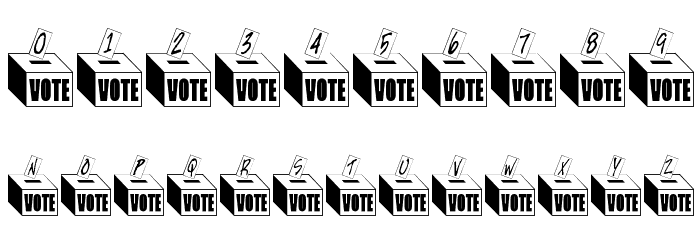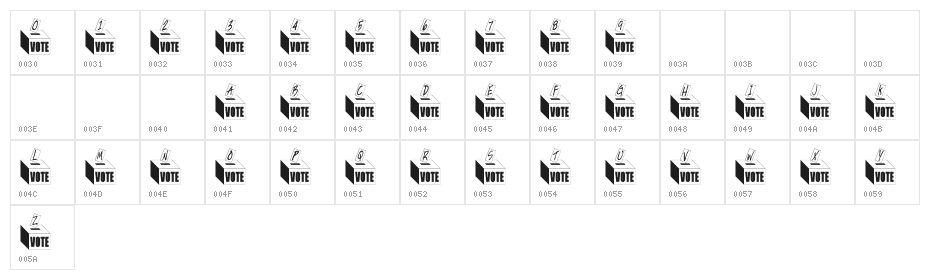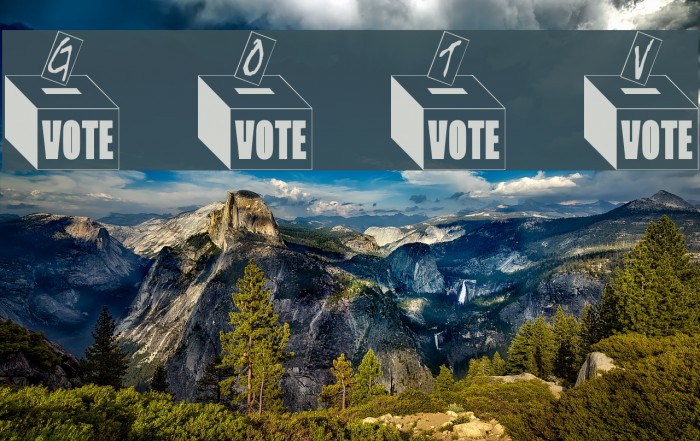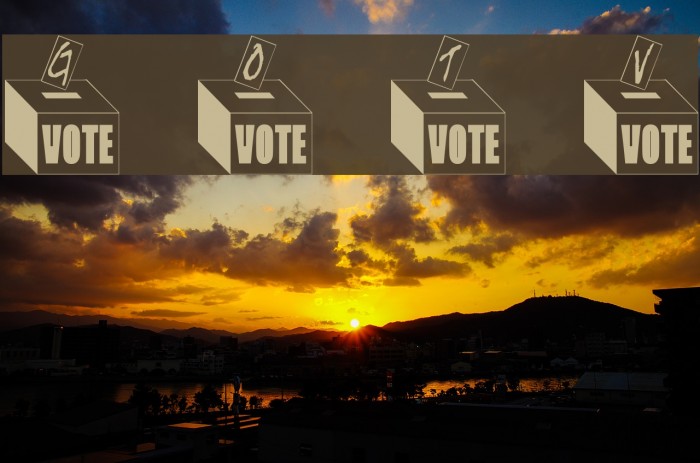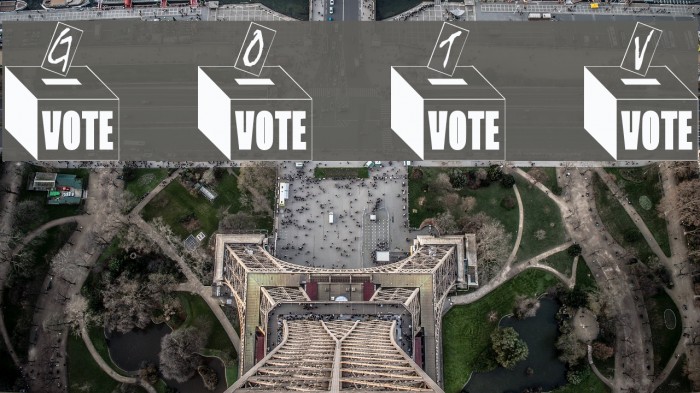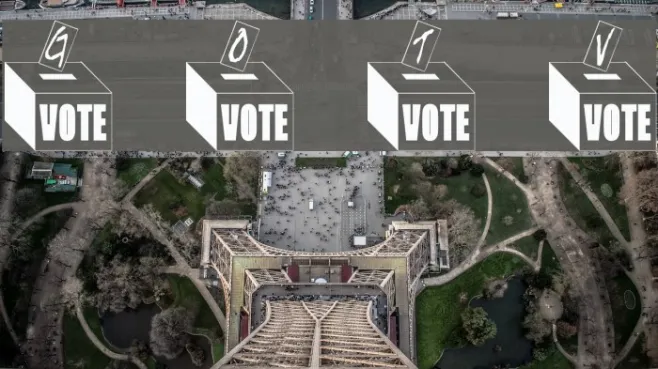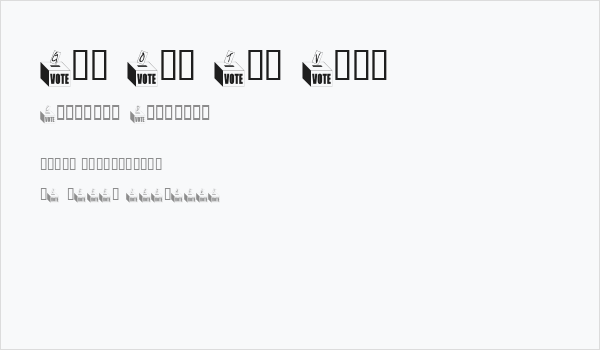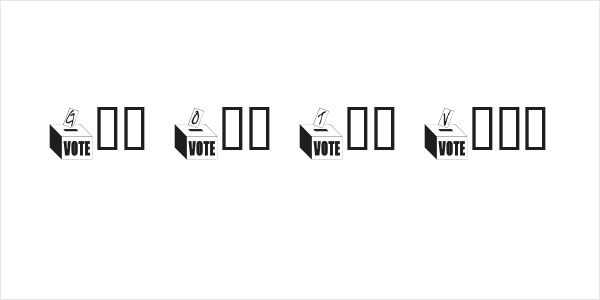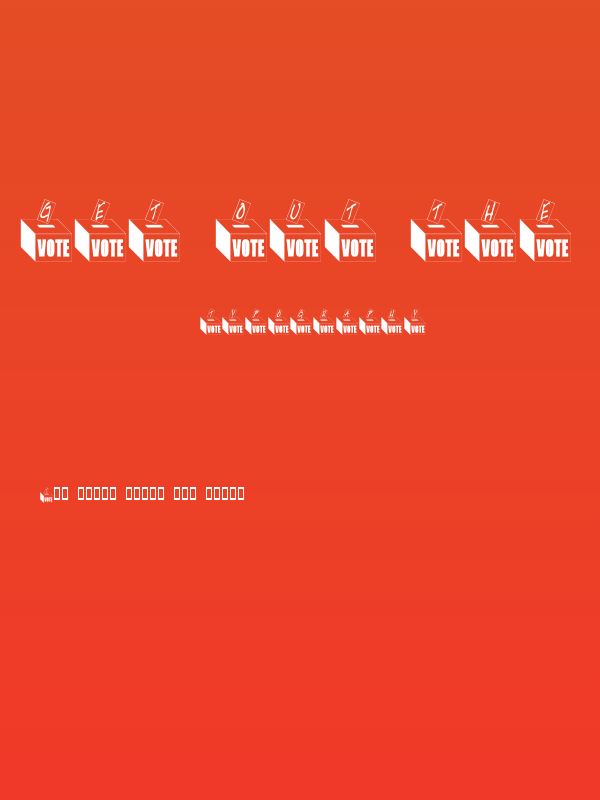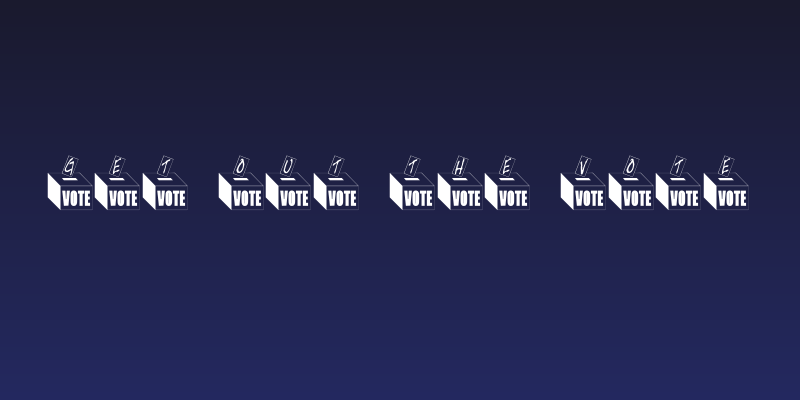
Get Out The Vote Font
Get Out The Vote Description
This font features a unique and bold design where each character is integrated into a three-dimensional box labeled 'VOTE'. The letters and numbers are positioned on top of the box, giving a sense of depth and perspective. The style is highly decorative, making it stand out with its strong visual impact. The characters are uppercase and lowercase, with numbers and special symbols, all maintaining the same thematic design. The font is ideal for attention-grabbing headlines or thematic projects related to voting or civic engagement.
| Use Case | Headlines, Posters, Campaign Materials |
| Proposed Projects | Ideal for election campaigns, posters, banners, and any project promoting civic engagement or voting awareness. |